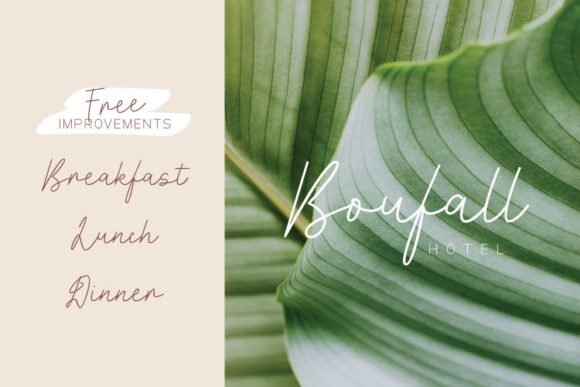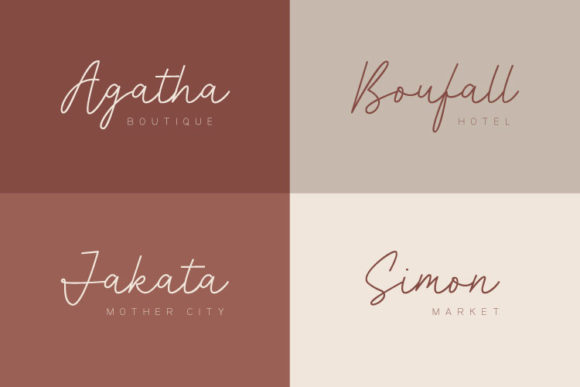
Lovinglove Font
Lovinglove is an elegant script font with a contemporary atmosphere and impeccable form, inspired by timeless classic calligraphy. It can be used for various purposes such as logos, wedding invitations, headings, t-shirts, letterhead, signage, labels, news, posters, badges and so much more.